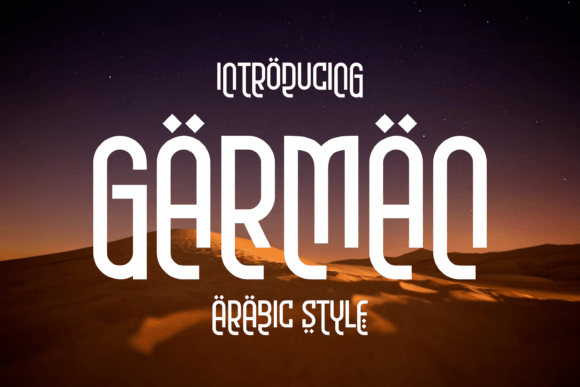
The Perfect Font for Your Creative Vision: Garman Font
You know that moment when a spark of creativity hits you, and you envision the perfect design for your next project? It’s a rush of excitement and inspiration, and you can’t wait to bring it to life. For designers, finding the right font can make all the difference in capturing that vision. That’s where the classic display font, Garman Font, comes in.
This versatile font is perfectly suited for branding, name cards, posters, logos, magazine covers, banners, t-shirts, and headers, or even large-scale artwork. Its timeless elegance makes it an ideal choice for designers looking to create memorable and impactful designs. Whether you’re working on a personal project or a commercial campaign, the Garman Font is a valuable asset to have in your design toolkit.
Key Features of Garmond Font
- Unique Characteristics: Garmond is known for its elegant, refined aesthetic, with subtle flair and flair strokes that add a touch of sophistication to any text.
- Legibility: Garmond is designed to be highly legible, with clear, distinct letterforms that make it easy to read even in small sizes.
- Language Support: Garmond supports a wide range of languages, including Latin, Greek, and Cyrillic scripts, making it a versatile choice for global applications.
Garman Font Review
Overall, I was quite impressed with the Garman Font – it has some unique features that make it stand out from the crowd. ✨ Here are some of its strengths:
- Unconventional yet elegant – Garman Font’s combination of rounded and pointed shapes creates a distinctive, eye-catching look that works well in a variety of contexts.
- Good legibility – Despite its unconventional shape, the font is surprisingly easy to read, making it a great choice for body text.
- Stylish alternatives for numbers and punctuation – The font’s unique treatment of numbers and punctuation adds to its overall flair.
However, there are some limitations to keep in mind: ⚠️
- May not be suitable for all projects – While Garman Font is great for creative or artistic projects, it may not be the best choice for more formal or traditional contexts.
- Lack of bold weight options – The font’s bold weight options are limited, which may make it less versatile than some other fonts.
Overall, I’d say Garman Font is a solid choice for designers looking to add some visual interest to their projects. While it may not be perfect for every situation, it’s definitely worth considering for the right project.
Garman is particularly useful for creating unique headings and titles in Canva projects.
Garman is a great choice for creating custom typography in Adobe design applications.
Garman is a versatile font that can be used for a variety of applications in PowerPoint and Word.
To get the most out of the Garman font, use it sparingly and in combination with other fonts to create visual interest.
Experiment with different font sizes and styles to create a unique look.
Use Garman to create bold headings and titles, and pair it with a simpler font for body text.